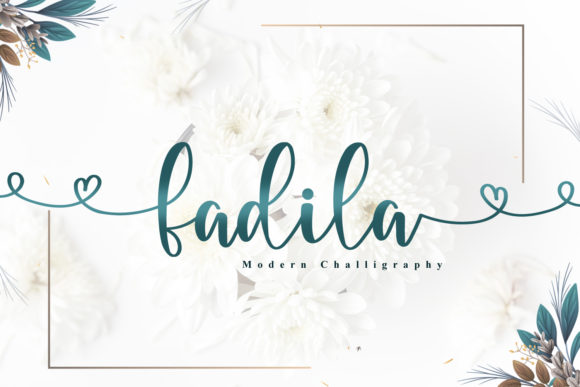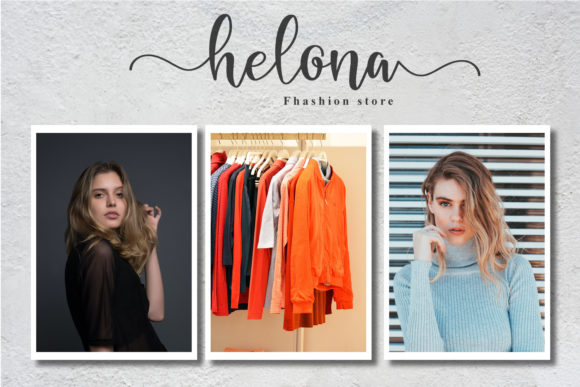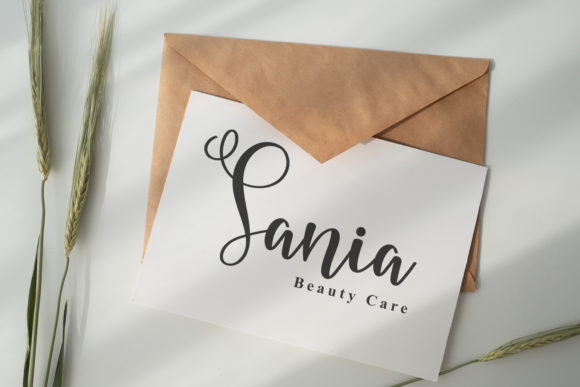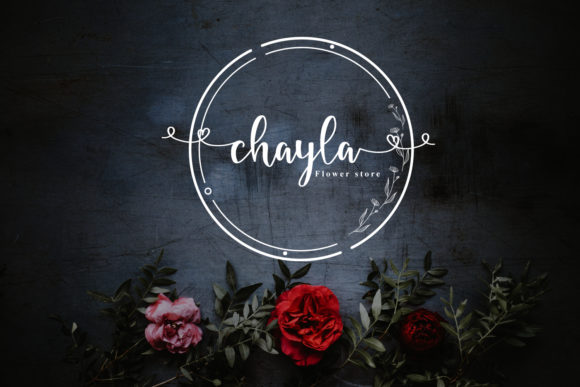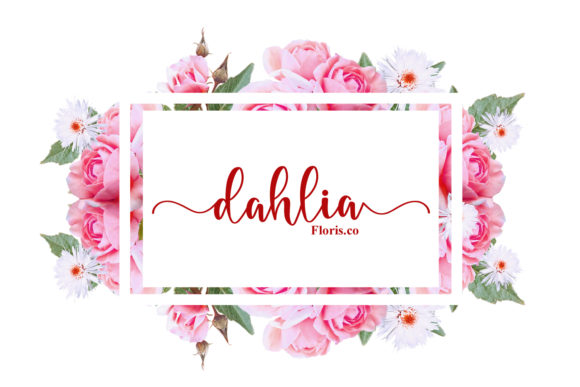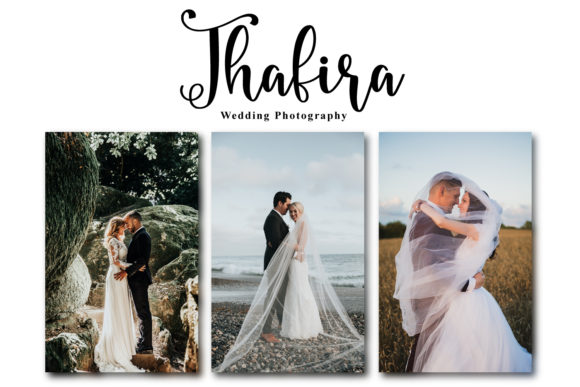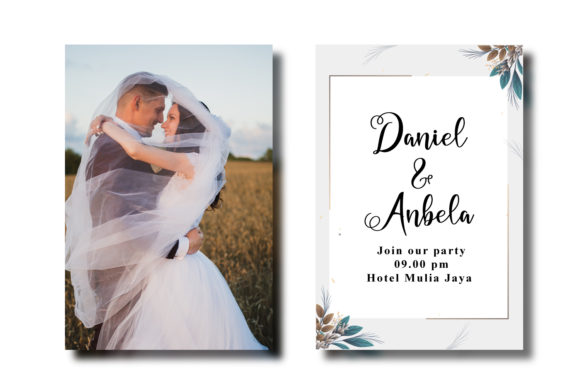
Fadila Font
About Fadila Font
Fadila is a delicate and timeless handwritten font. It looks lovely on wedding invitations, thank you cards, quotes, greeting cards, logos, business cards and every other design which needs a handwritten touch.